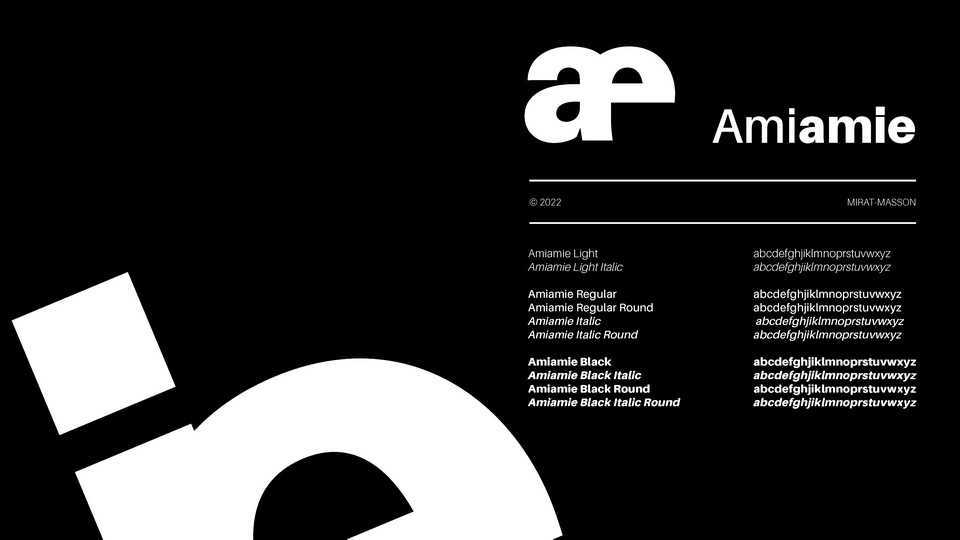
Download Amiamie font, a typeface imagined between friends and inspired by the classic Helvetica. Amiamie is a font for all authors and poets who wish to be the new inclusive heroes of free writing.
Designer: Mirat Masson